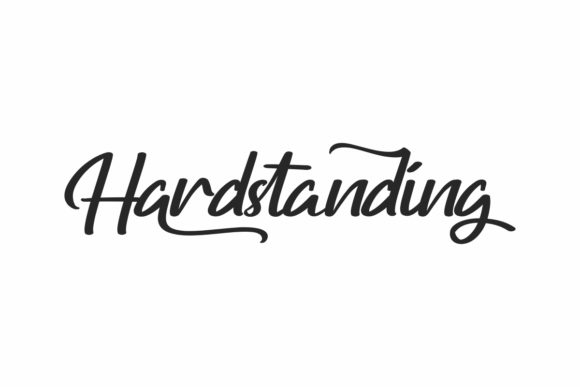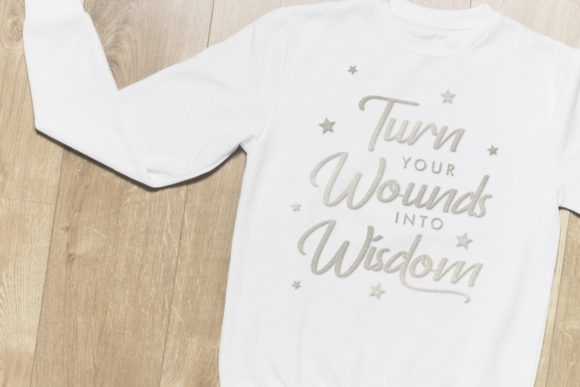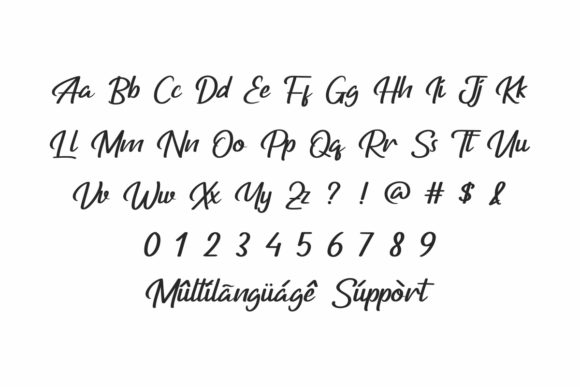
About Hardstanding Font
Hardstanding is a simple and elegant handwritten font. Use this font for any crafting project that requires a handwritten touch!